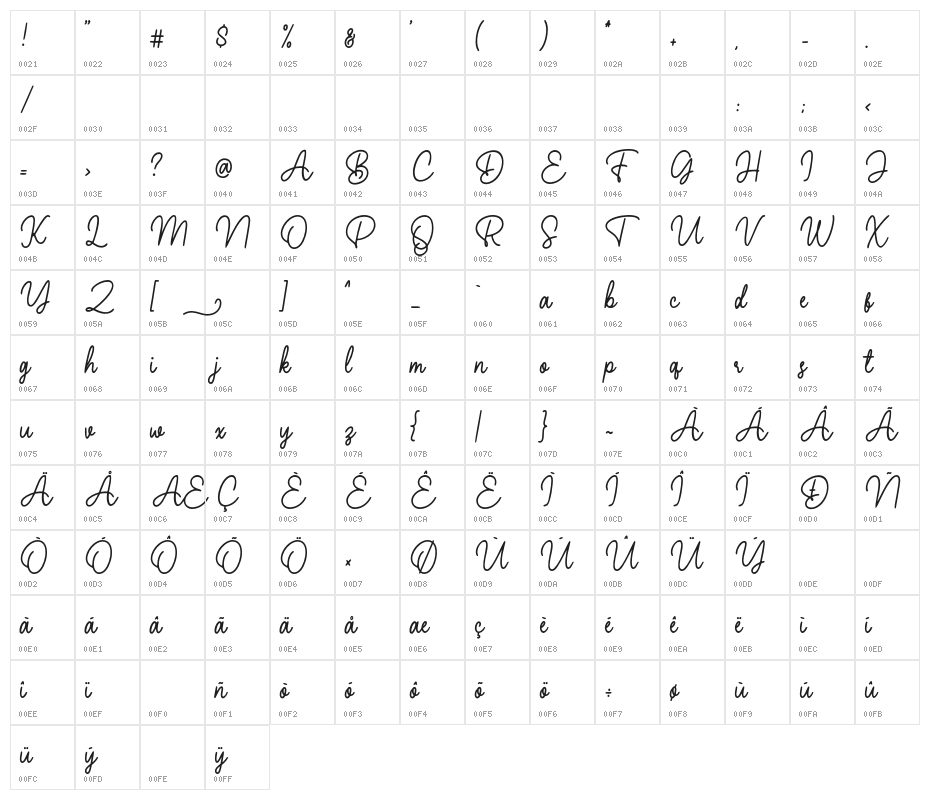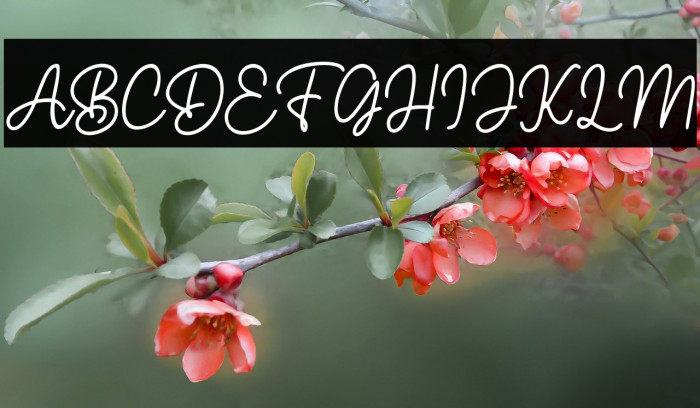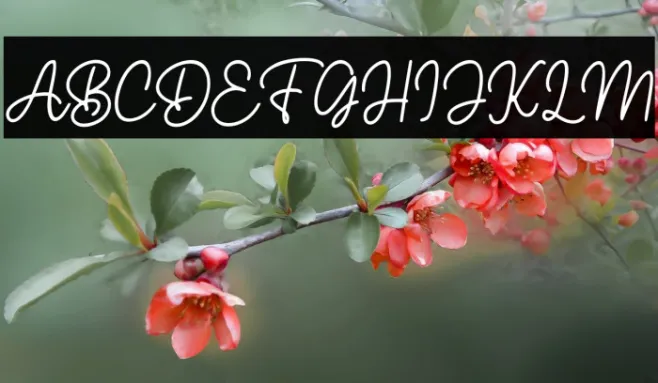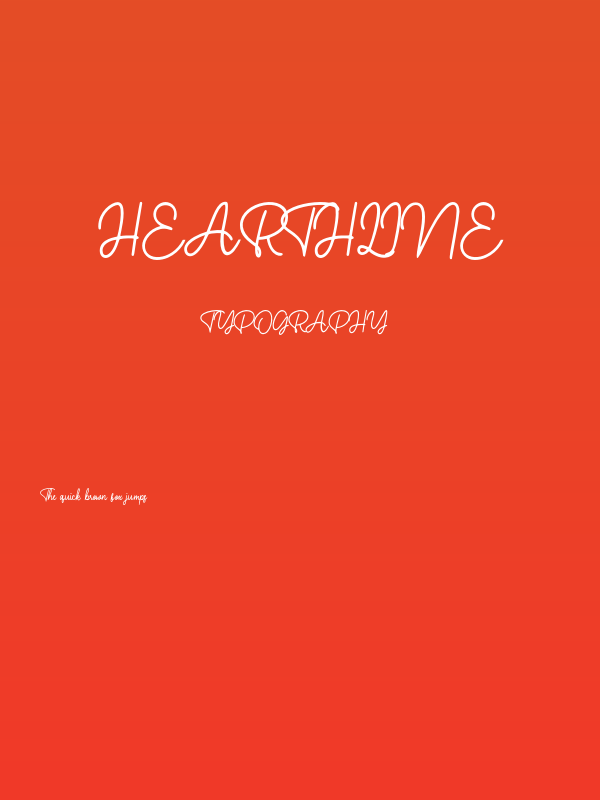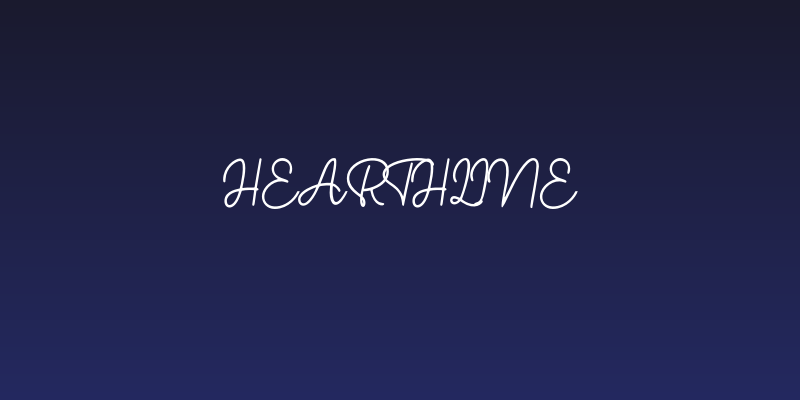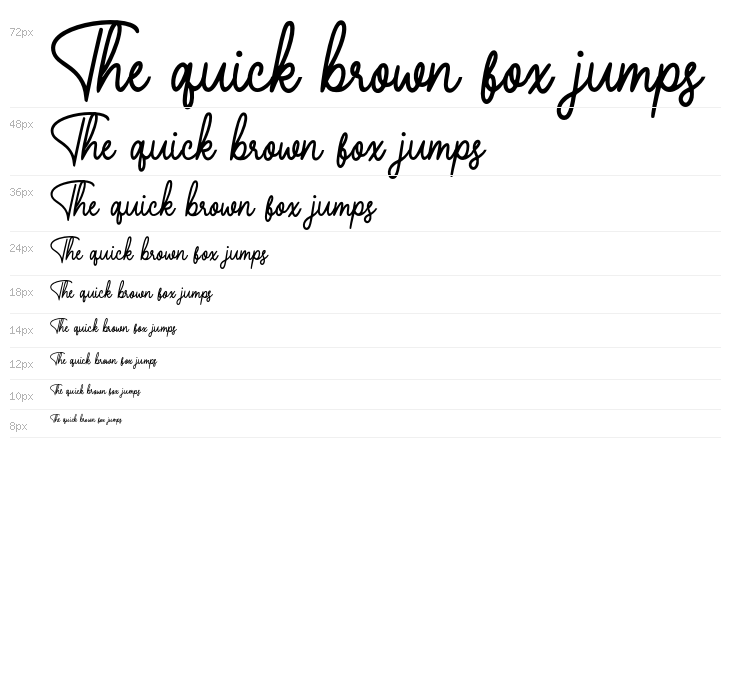
Hearthline Font
Hearthline Description
This font features a flowing, cursive style with elegant loops and swirls, giving it a handwritten appearance. The uppercase letters are tall and slender, with graceful curves that connect smoothly from one letter to the next. The lowercase letters maintain a consistent flow, enhancing the script-like quality. The numbers and special characters are designed to match the overall aesthetic, with similar curves and fluidity. This font exudes a sense of elegance and sophistication, making it ideal for projects that require a personal, artistic touch.
| Overall Style | Elegant, Artistic |
| Use Case | Logos, Invitations, Artistic designs |
| Proposed Projects | Ideal for wedding invitations, greeting cards, personal branding, and artistic projects. |